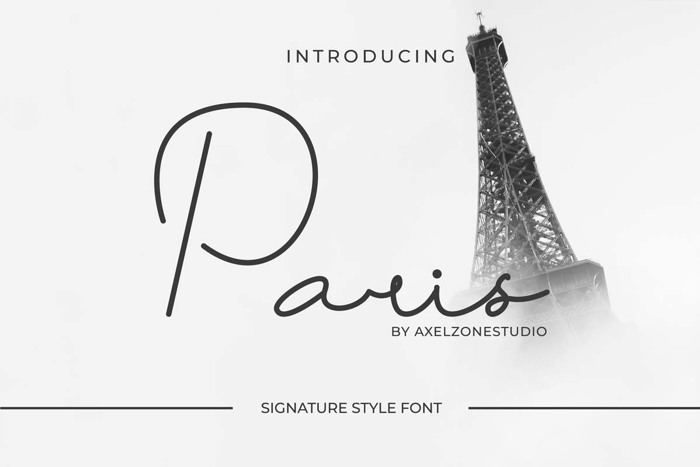
Paris Font
Paris is flowing and relaxing handwritten font. Fall in love with its incredibly versatile style and use it to create gorgeous wedding invitations, beautiful stationary art, eye-catching social media posts, signature, branding, and much more!